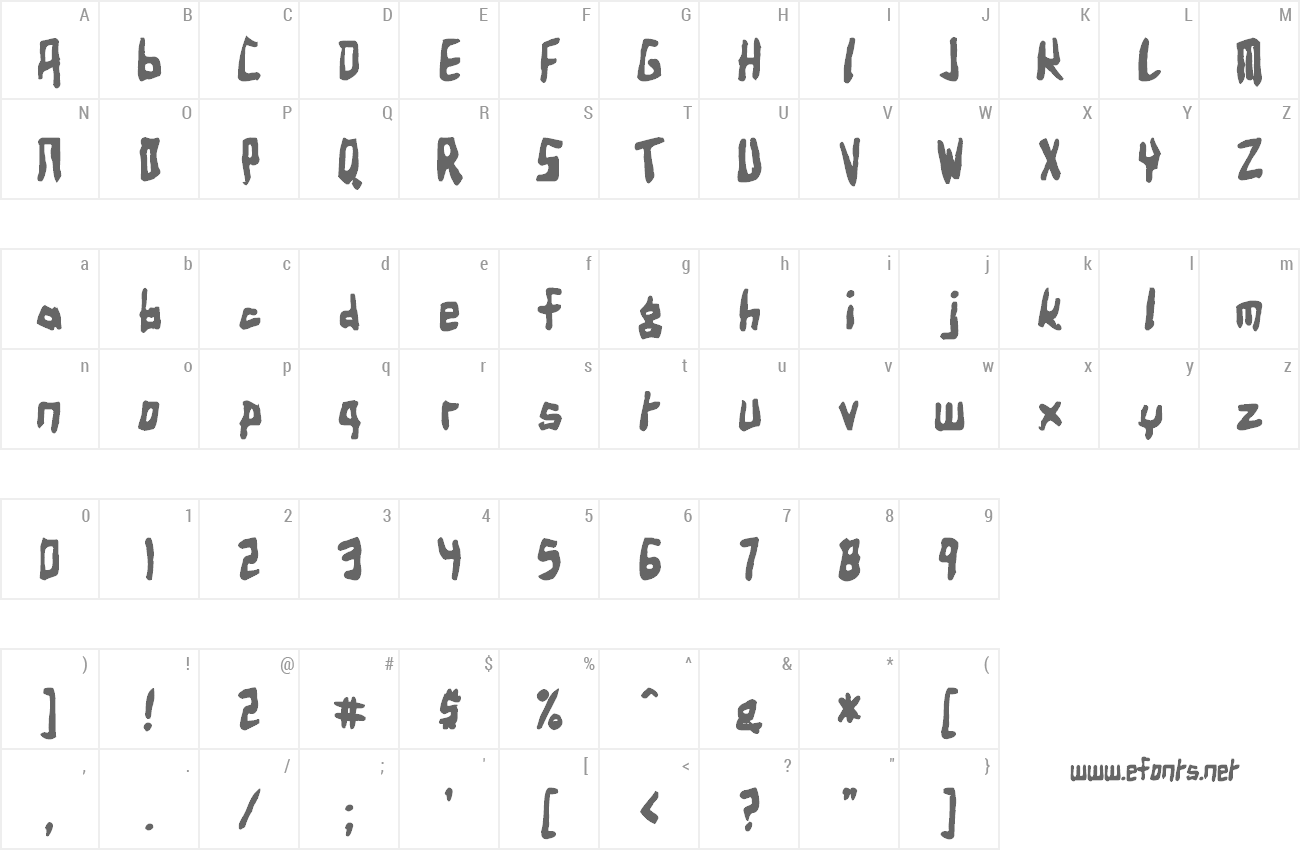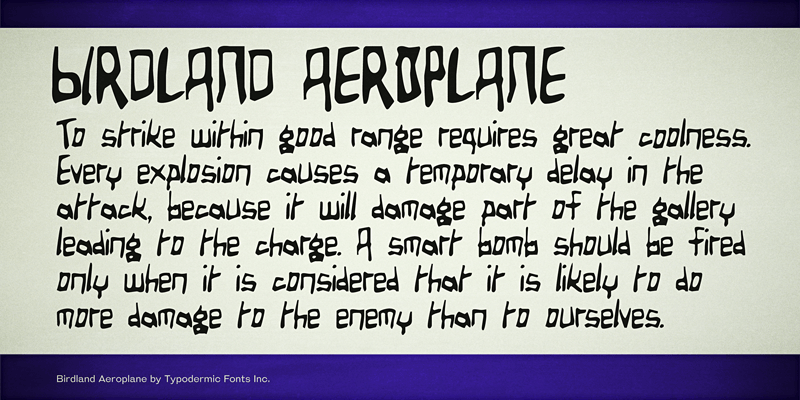
Preview and download Birdland Aeroplane Font. Created by Typodermic Fonts in Fancy Cartoon styles with 100% Free license.
Birdland Aeroplane is a hasty, maniacal marker scrawl. These fonts include a license that allows free commercial use: sometimes referred to as a desktop license. This allows you to install the fonts on a computer and use them to create posters, web graphics, game graphics, t-shirts, videos, signs, logos and more. Read the license agreement for details. If you'd like to embed these fonts in an app, ebook, on the web or anything that's not covered by the desktop license agreement, visit the link below. You'll find distributors who offer different types of licenses or you can contact me for help. http://typodermicfonts.com/birdland-aeroplane/ |